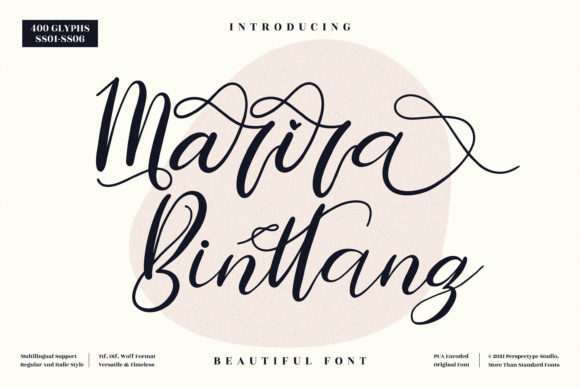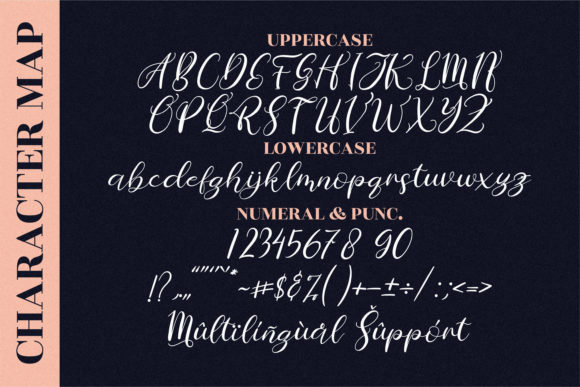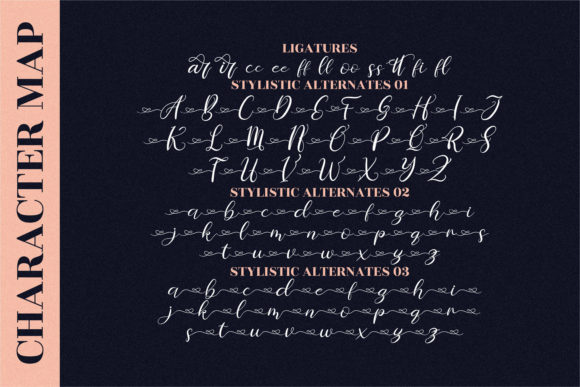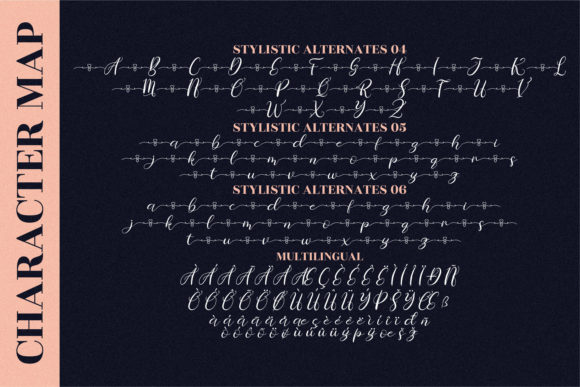
About Marira Binttang Font
Marira Binttang is a beautiful light handwritten font with a unique feel and a stunning impact. It will add a luxury spark to any design project that you wish to create! This font is PUA encoded which means you can access all of the amazing glyphs and ligatures with ease!